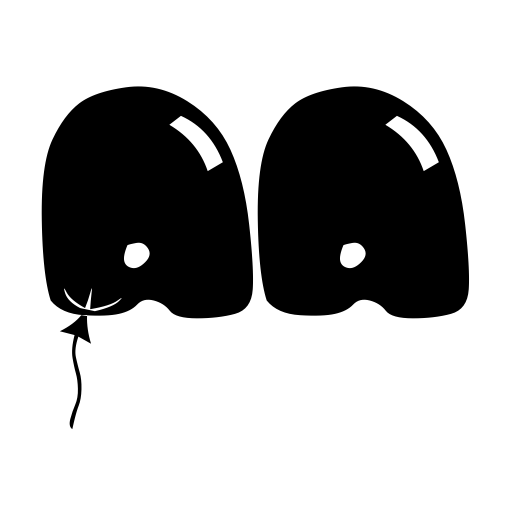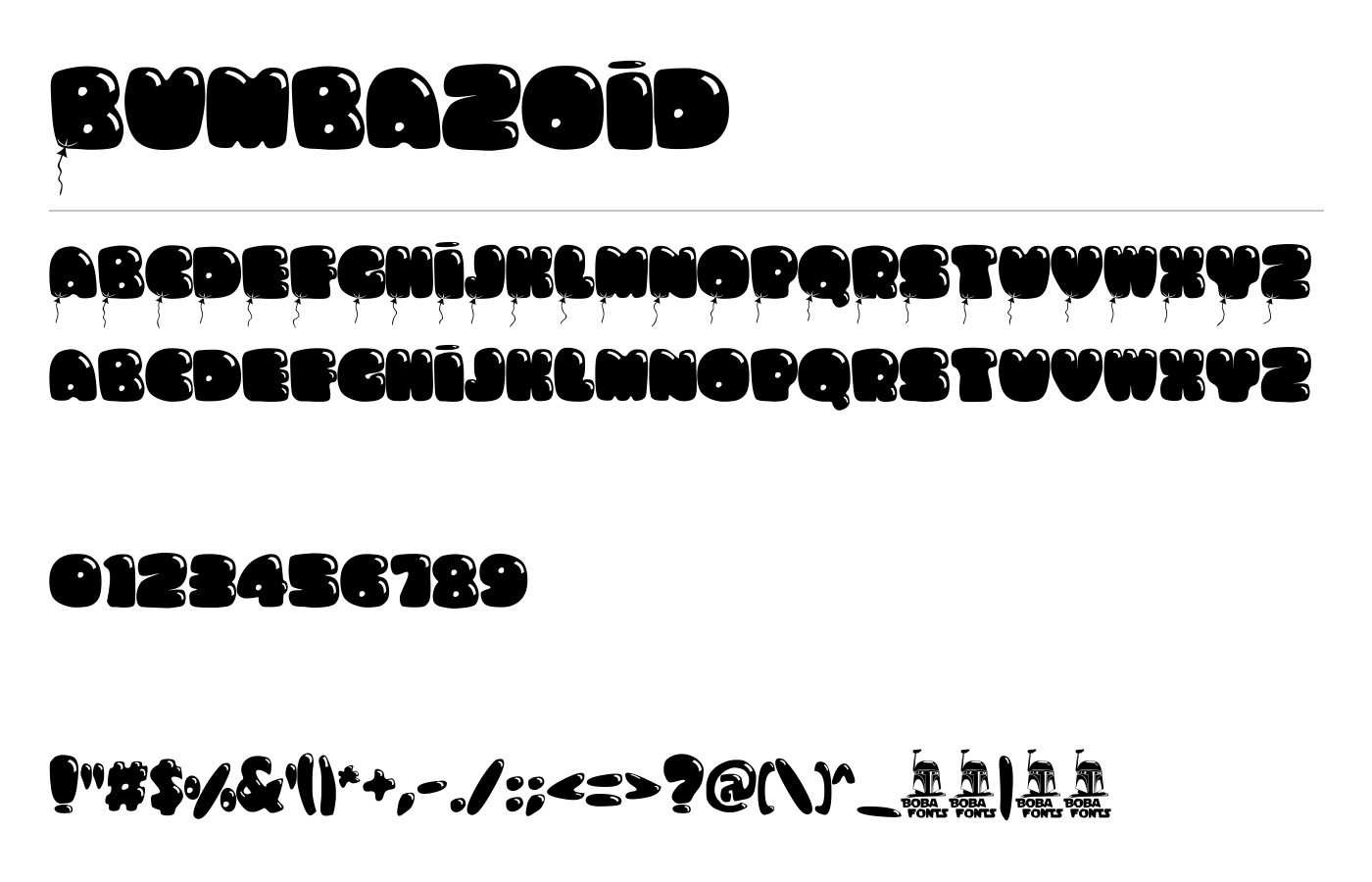
Bumbazoid is a playful, bold balloon-inspired font characterized by its thick, rounded shapes and whimsical details like subtle highlights and hanging strings. Its heavy weight and fun, informal style make it ideal for children's party invitations, festive posters, or any creative project that seeks a lively and joyful atmosphere. This font works best in headlines and branding where a sense of fun and energy is desired.
Bumbazoid Font
About Bumbazoid Font